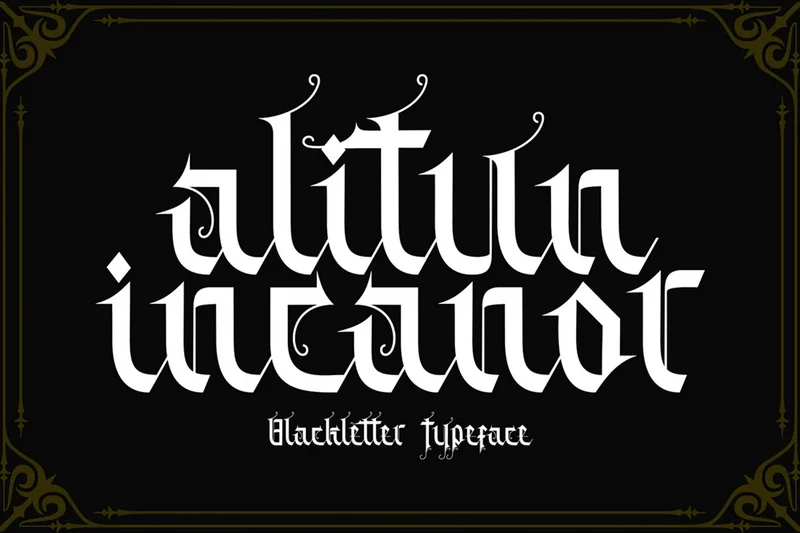
Alitun incanor
The Alitun Incanor font is inspired by Gothic typography and calligraphy. It features clean, crisp lines, making it easier to read, combining old and new styles. If you’re looking for a font with these features, Alitun Incanor is the perfect fit.
This font features natural calligraphy—a hallmark of Gothic synthesis—and supports multiple languages. With this font, you can create your own unique designs.